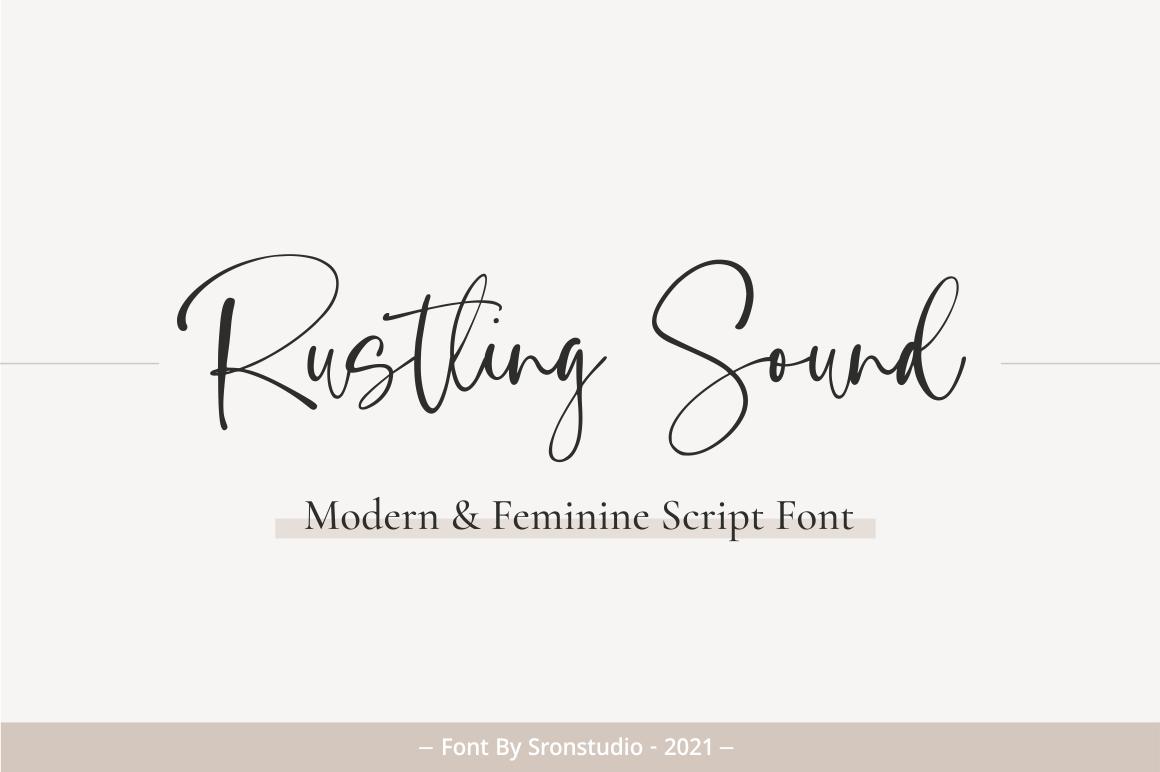
Rustling Sound Font Description
Rustling Sound is a stylish and incredibly elegant handwritten font. It looks stunning on wedding invitations, thank you cards, quotes, greeting cards, logos, business cards and every other design which needs a handwritten touch. This font is PUA encoded which means you can access all of the glyphs and swashes with ease!